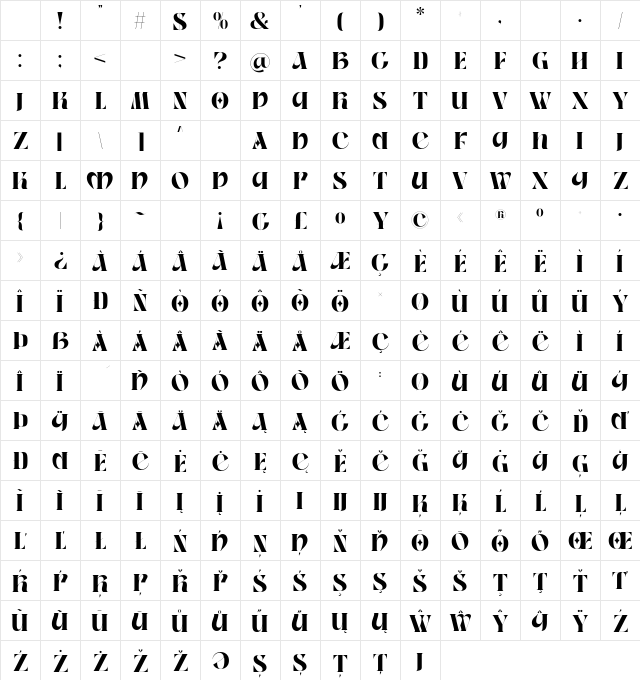
Vintage Mohai - Demo Version wears its vintage influences proudly, with letterforms that recall mid-century signage, classic packaging, and nostalgia-driven design.
Font Pairing: Combine Vintage Mohai - Demo Version with a simple slab or neutral sans - period-accurate companions reinforce the vintage feel without competing for attention.
Pro Tip: Lean into Vintage Mohai - Demo Version's period character by pairing it with aged paper textures, muted colour palettes, and vintage illustration styles.